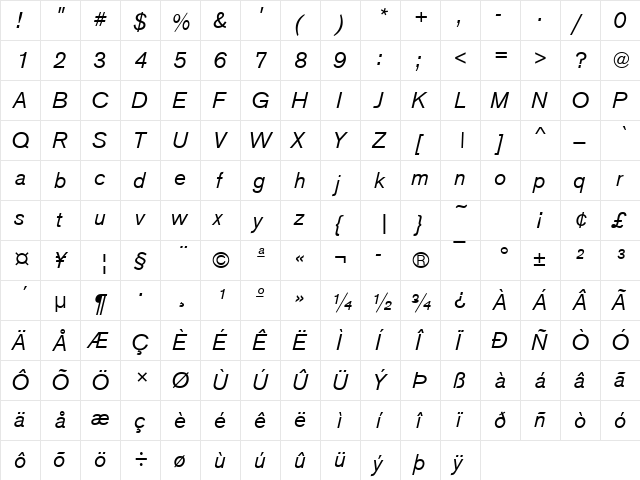
URWAccidaliaT Italic
Design Context for URWAccidaliaT Typeface
URWAccidaliaT is a composed and adaptable typeface that performs quietly and consistently across a wide range of design contexts. The slanted form adds forward momentum and visual energy.
Pro Tip: Try URWAccidaliaT for annotation and caption copy alongside an upright companion — the contrast in angle creates a dynamic but ordered typographic system.